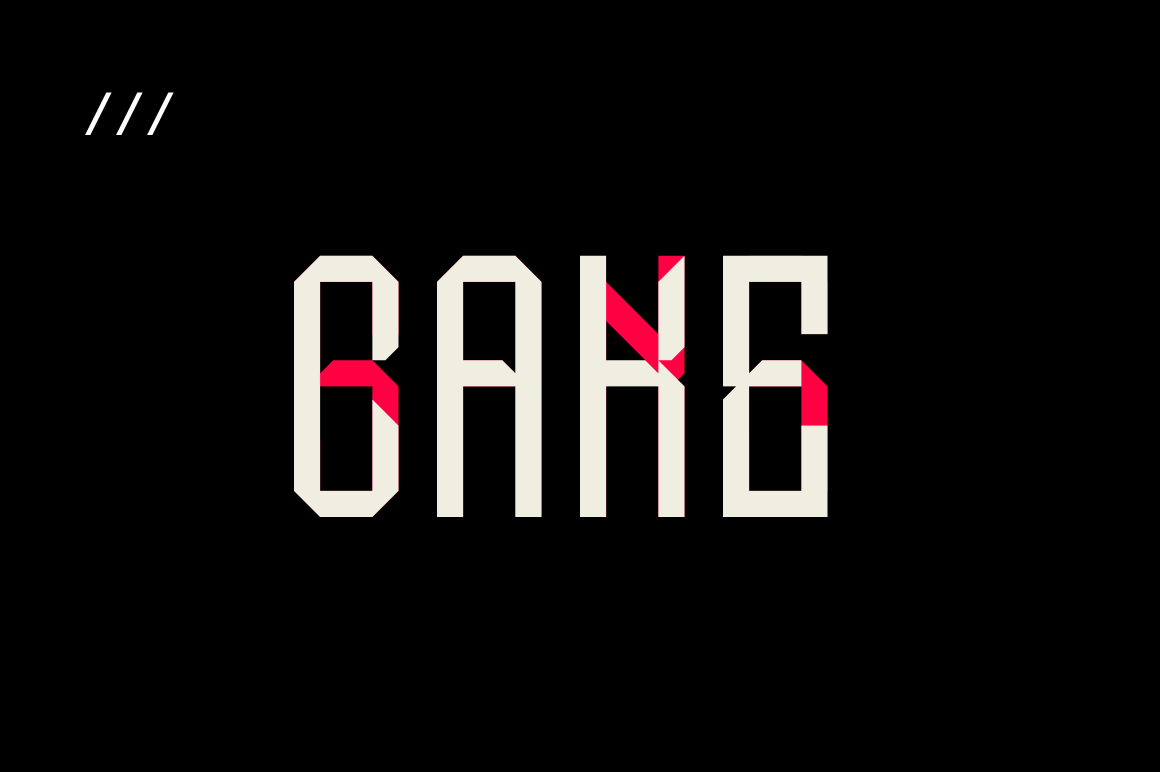
CAKE SANS - font.
CAKE SANS font.
True big angular font with a twist. Cake Sans take inspiration from the early 50's german typography and the sci-fi 90's style.